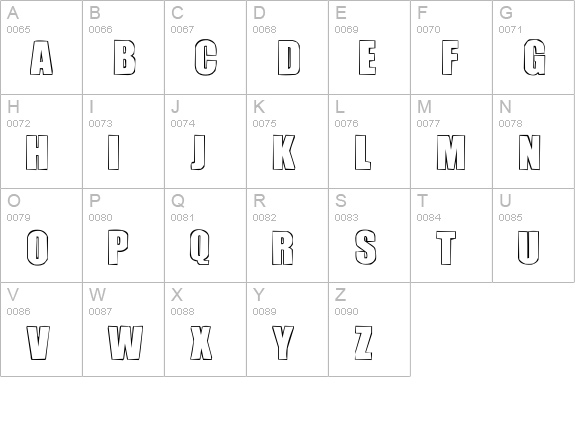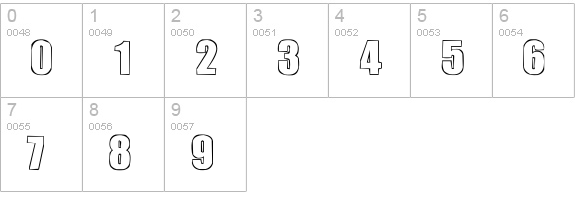
Chutzpah font is a bold and eye-catching typeface that exudes confidence and charisma. With its strong and modern design, this font is perfect for making a statement in your designs. Whether you're creating posters, logos, or social media graphics, Chutzpah font will surely grab attention and leave a lasting impression. What's even better is that Chutzpah font is available for free download at FontsMarket.com. This means you can easily access this stylish font and use it in your projects without any cost. Don't miss out on the opportunity to add a touch of boldness and flair to your designs with Chutzpah font - download it now and let your creativity shine!